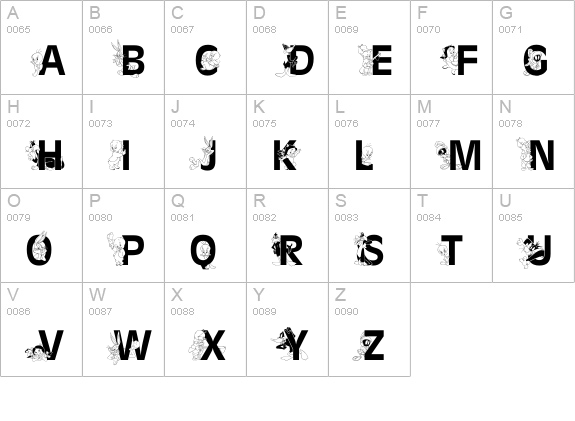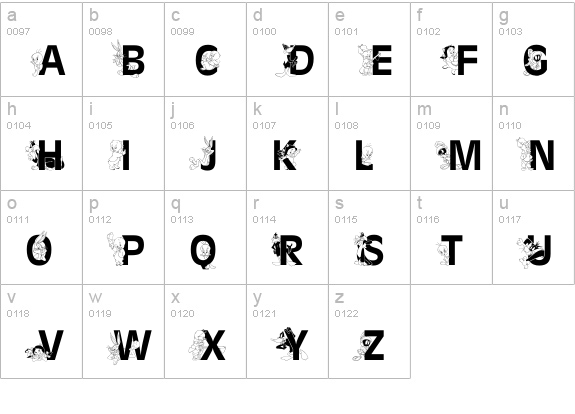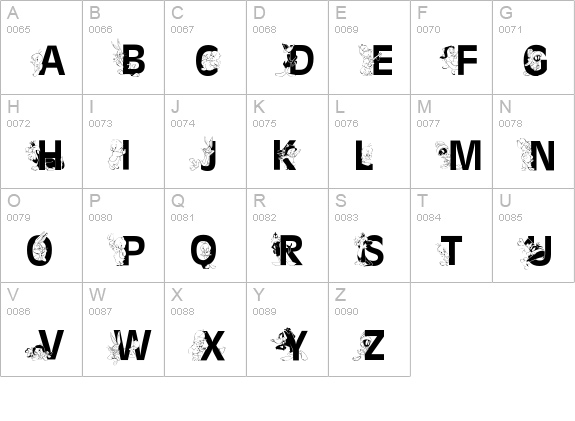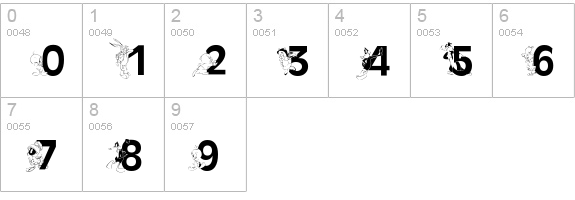
Looney Tunes BT Font Details
Looney Tunes BT font is a playful and whimsical typeface that captures the fun and energy of the beloved Looney Tunes characters. With its bold and dynamic letterforms, this font is perfect for adding a touch of nostalgia to your designs. Whether you're creating posters, greeting cards, or social media graphics, Looney Tunes BT font will bring a touch of classic cartoon charm to your projects. Best of all, Looney Tunes BT font is available for free download at FontsMarket.com. So go ahead and add a dash of animated flair to your designs with this delightful and versatile font.